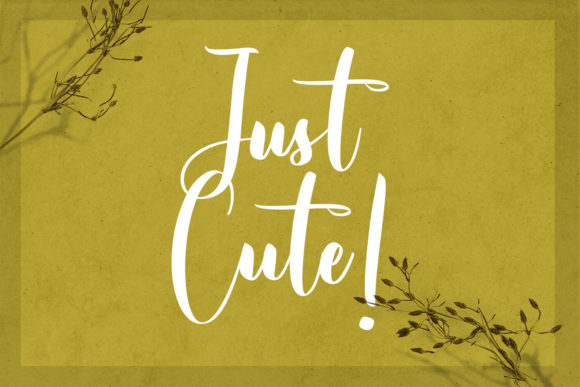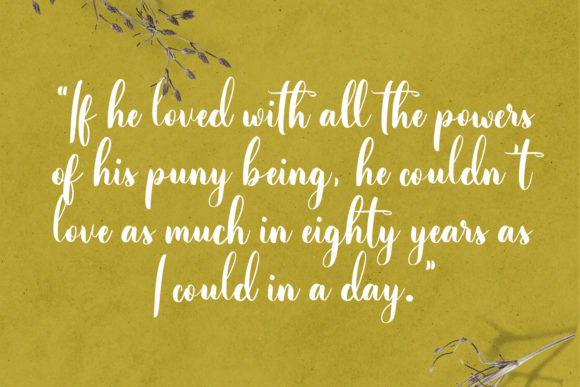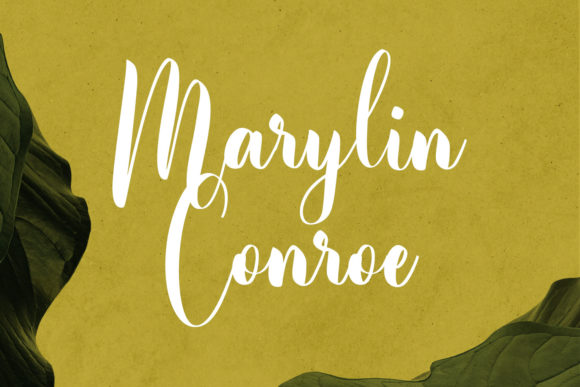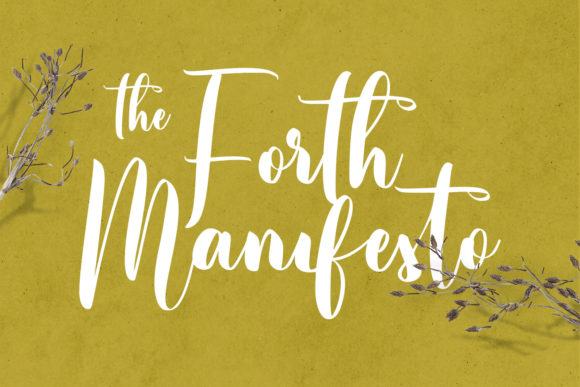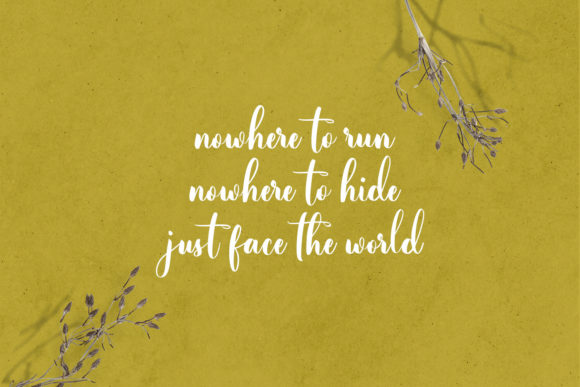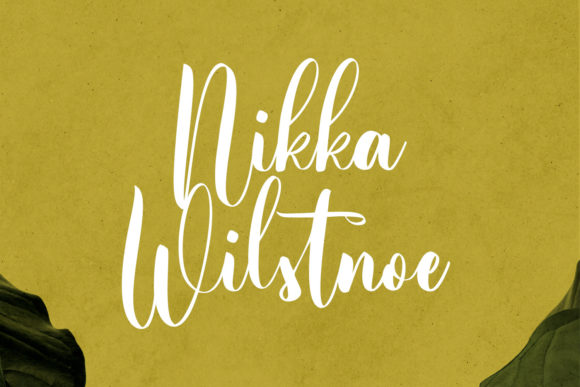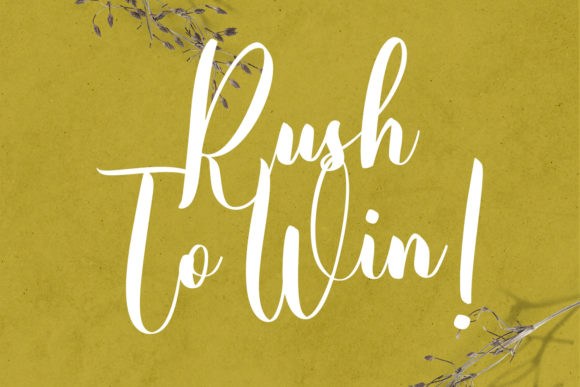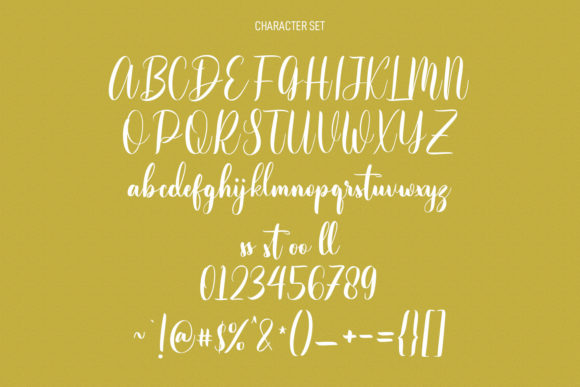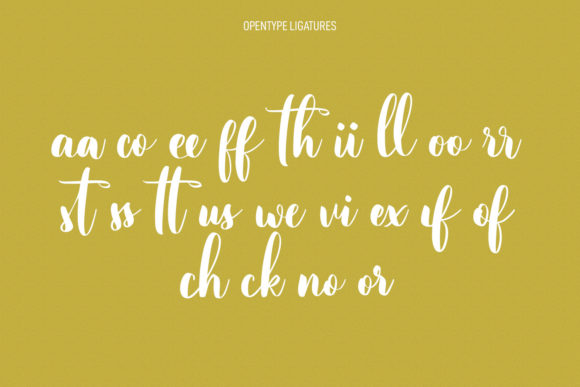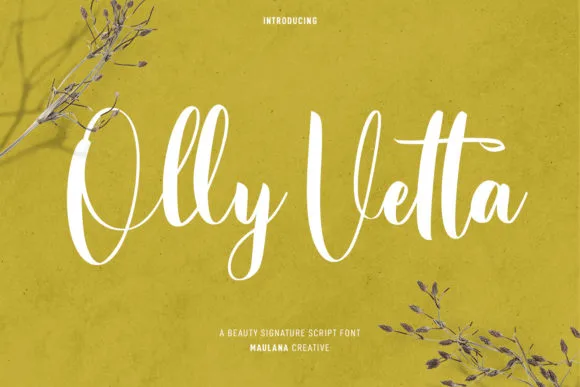
Olly Vetta Font
About Olly Vetta Font
Olly Vetta is a contemporary script font that boasts modern aesthetics characterized by high contrast strokes, playful characters, and included ligatures. This font is designed to make a striking impact and will look extraordinary in a variety of contexts, showcasing its versatility across different design projects.
The high contrast strokes in Olly Vetta contribute to a dynamic and visually engaging design. This feature is particularly effective for creating a modern and stylish appearance, making it suitable for a range of applications.
The incorporation of fun characters adds a playful touch to Olly Vetta, making it suitable for diverse design contexts where a lighthearted and creative vibe is desired. This can include anything from branding and advertising to social media graphics and more.
The inclusion of ligatures enhances the font’s visual appeal and creative flexibility. Ligatures are combinations of two or more characters that are designed to create a seamless and aesthetically pleasing connection. This feature allows for smoother and more natural-looking typography, especially in script fonts like Olly Vetta.
The modern script design of Olly Vetta makes it well-suited for various projects, including logos, headlines, packaging, posters, and more. Its contemporary style ensures that it remains relevant and eye-catching in diverse design applications.
Whether used in print or digital media, Olly Vetta’s modern script font elements make it an excellent choice for designers looking to infuse a sense of sophistication, playfulness, and creativity into their projects.
In summary, Olly Vetta is a versatile and modern script font featuring high contrast strokes, fun characters, and ligatures. It is designed to stand out and make a lasting impression in a variety of contexts, making it a valuable asset for designers seeking a contemporary and stylish script font.